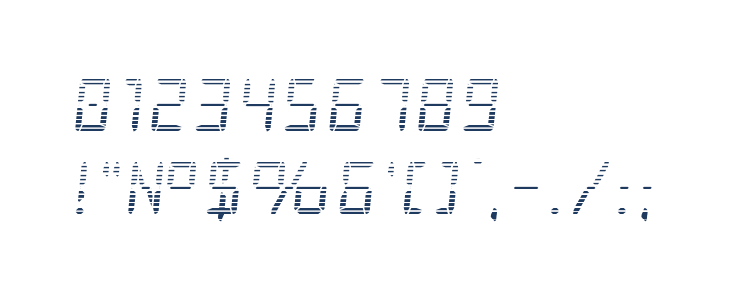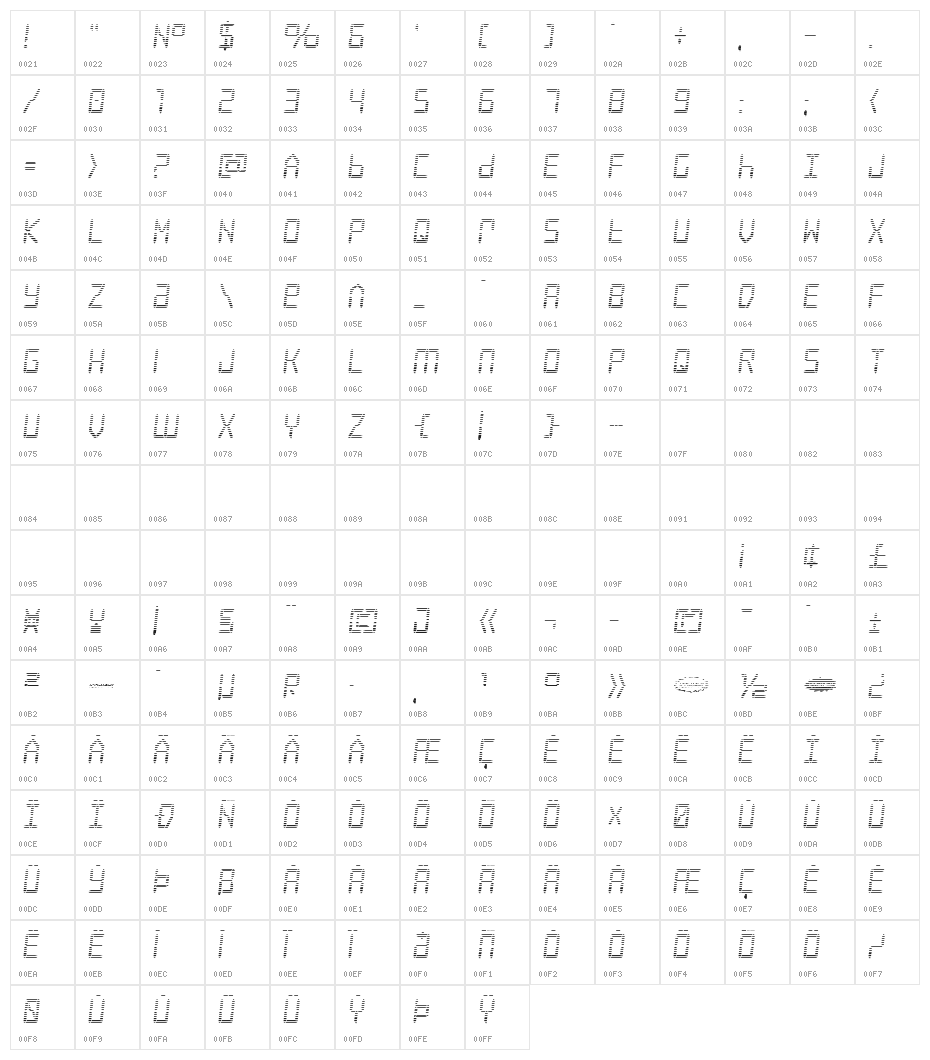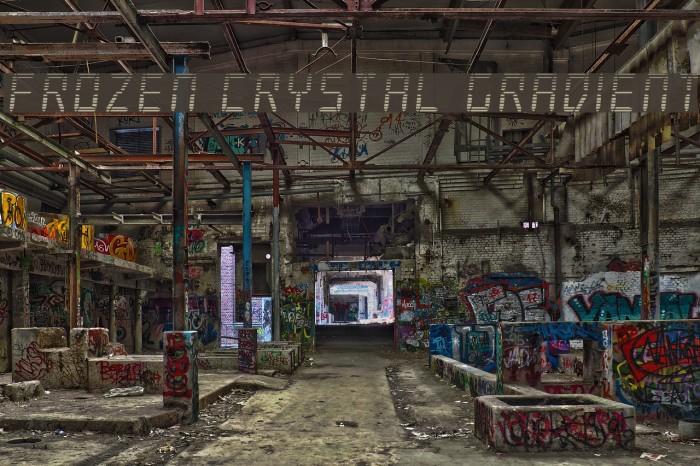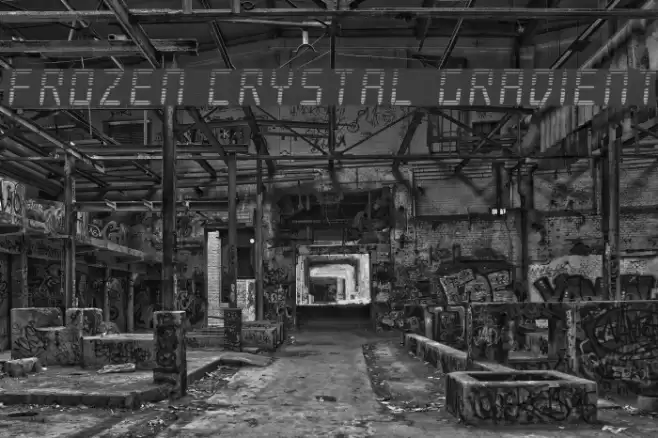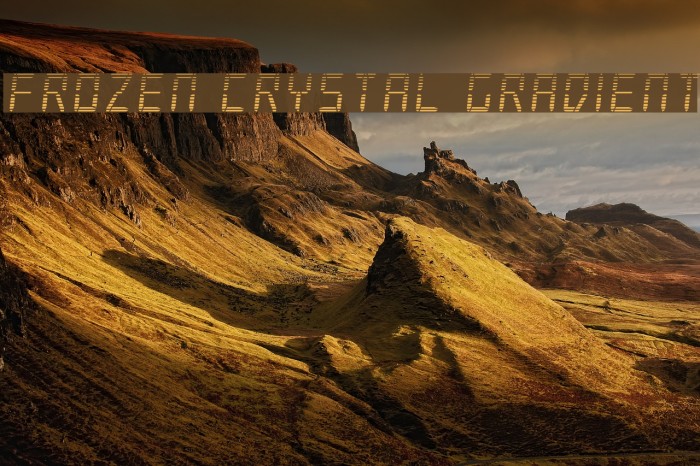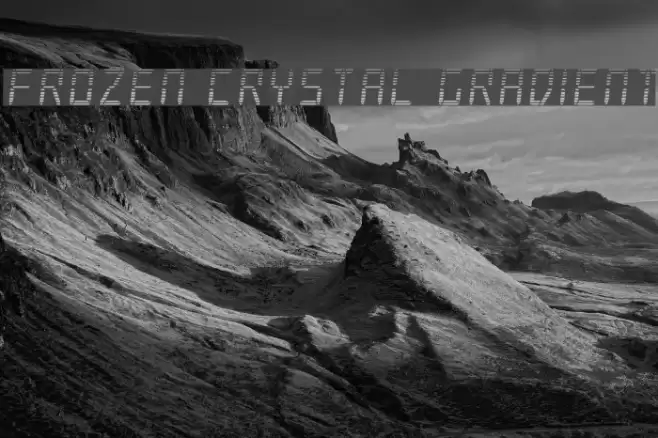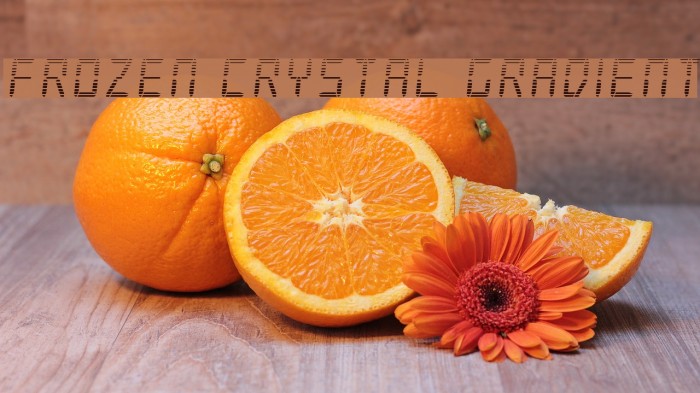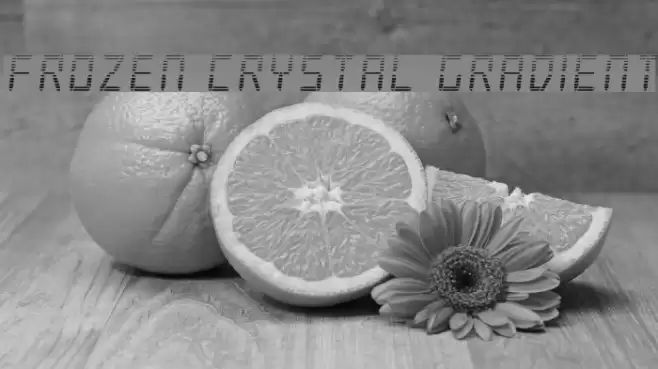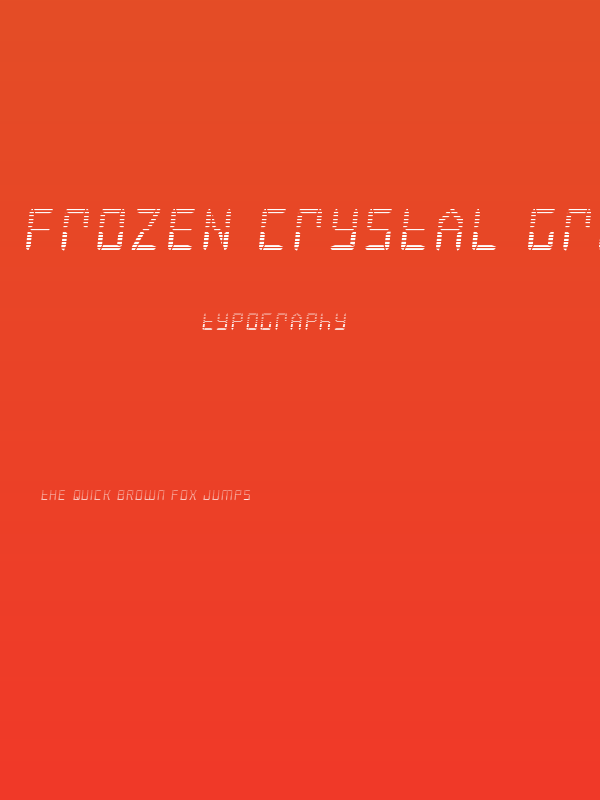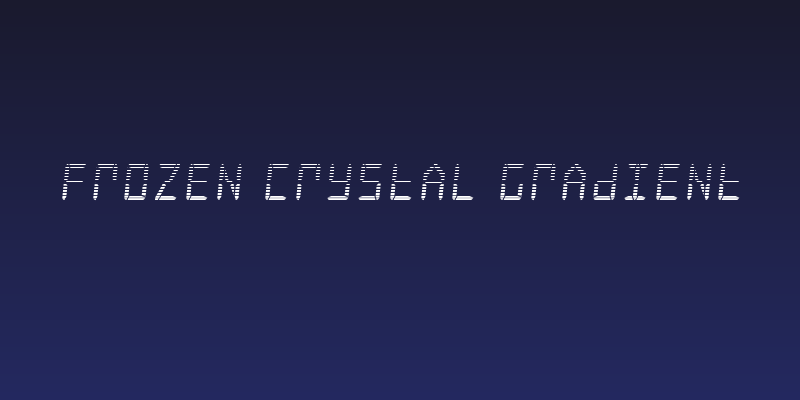
Frozen Crystal Gradient Font
Frozen Crystal Gradient Description
This font features a unique, futuristic design with a segmented, striped pattern that gives it a digital, tech-inspired look. The characters are constructed with horizontal lines that create a sense of movement and energy. The uppercase and lowercase letters maintain a consistent style, with sharp angles and geometric shapes. The numerals and special characters follow the same design principles, ensuring a cohesive appearance across all glyphs. This font's distinct style makes it ideal for projects that require a modern, edgy aesthetic.
| Proposed Projects | Ideal for technology branding, digital art, sci-fi themed projects, and modern advertising. |